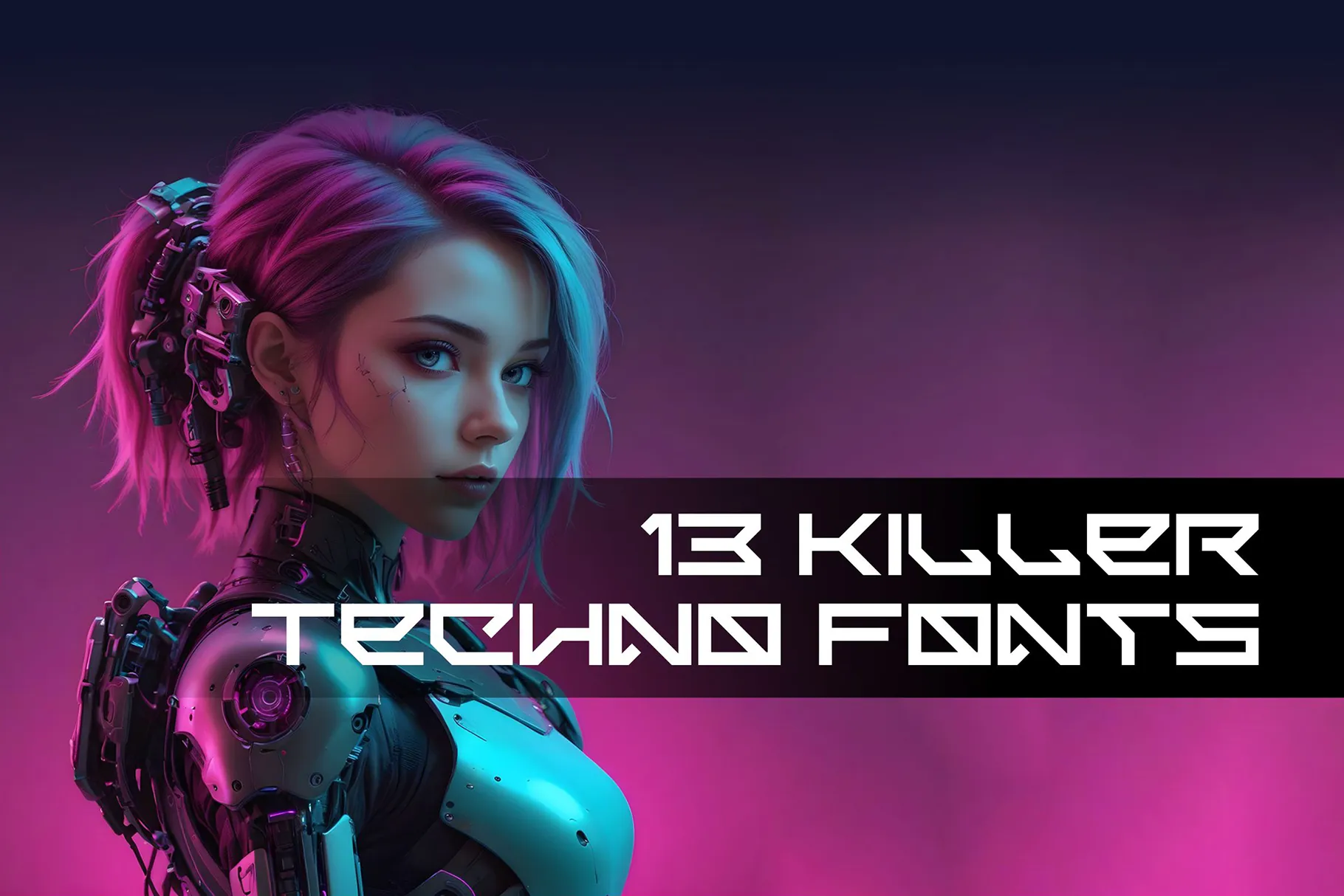
Fonts can make or break your design. When you want to scream future, techno fonts are your best friend. Built with clean lines, geometric shapes, and sharp edges, they instantly transport your audience to tomorrow. If you’re crafting a gaming brand, tech startup, or cyberpunk poster, look no further. Here are 13 killer techno fonts ready to take your design to the next level.
Byte Sharp is sharp, sleek, and unmistakably modern. Perfect for logos and headings, this font captures attention fast. Its angular forms bring a futuristic feel that suits digital products and gaming interfaces.
Turn up the heat with Heat Robox. This font features mechanical shapes mixed with rounded edges. The result? A balanced, tech-meets-human aesthetic that works for both posters and product packaging.
Devolt Strike brings raw power to your designs. Its bold strokes and distorted cuts give off an industrial, dystopian vibe. Great for sports branding or action movie titles.
Need energy? Quantum Energy delivers with dynamic shapes and futuristic flair. It’s ideal for websites, apps, and futuristic advertising campaigns. High readability ensures it performs well across platforms.
Think big, think Bigs Robotic. Its blocky letters scream machine age. Whether you’re branding a tech company or designing futuristic packaging, this font packs a punch.
Simple yet powerful, Technos is a must-have. Its clean lines and minimalist look make it versatile. Use it for tech blogs, crypto websites, or sci-fi book covers. It’s a true all-rounder.
Meta Futura feels like the next evolution of the classic Futura. It retains geometric charm while adding a modern twist. Perfect for branding that needs a hint of nostalgia with a futuristic edge.
Glow up your designs with Neon Strix. Inspired by neon lights and cyber cities, this font radiates energy. Use it for event posters, gaming streams, and music festival branding.
Space Over offers a sleek, sans-serif option with a cosmic twist. It’s clean but packs personality. Ideal for sci-fi books, space apps, and anything that explores the great beyond.
Verse Robo oozes dystopian energy. With sharp angles and tech-heavy styling, it fits dystopian narratives, techno parties, and edgy startups. It commands attention wherever it appears.
Looking for cyber vibes? Overthing brings technocyber flair with bold, experimental shapes. This is the font for cutting-edge fashion brands and avant-garde designers.
Neobique takes a different route. It’s a modern display serif with futuristic influences. Elegant but forward-looking, it’s excellent for magazine covers and luxury tech products.
Finish strong with Synthetix. With its synthetic curves and modular structure, it embodies the future. Use it for UI design, startup branding, or NFT drops.
When picking a techno font, consider your brand’s personality. Do you want edgy and raw? Go for Devolt Strike or Verse Robo. Do you prefer clean and versatile? Technos or Space Over will serve you well.
Also, think about readability. Fonts like Quantum Energy balance style and function, making them great for multiple uses.